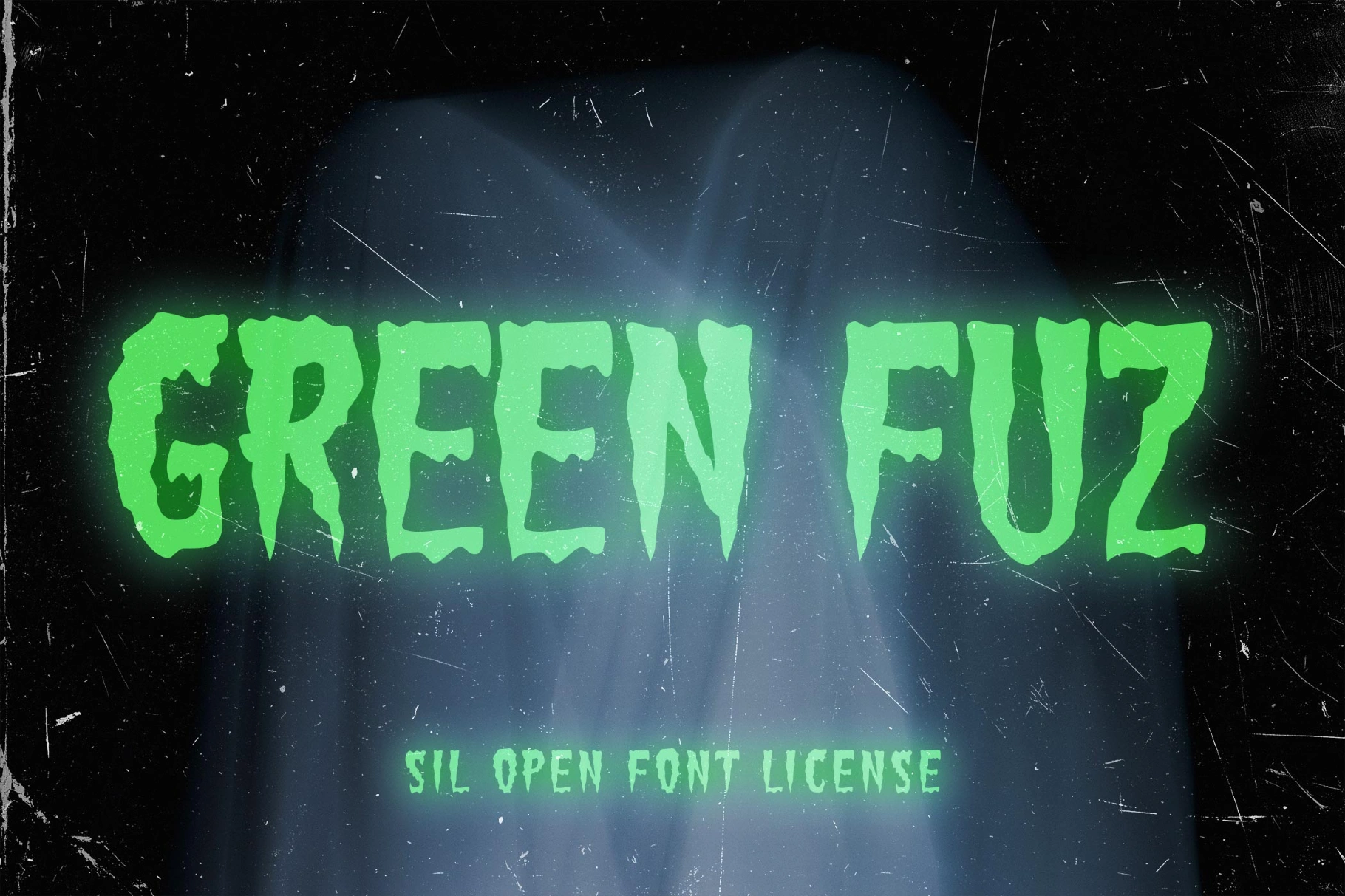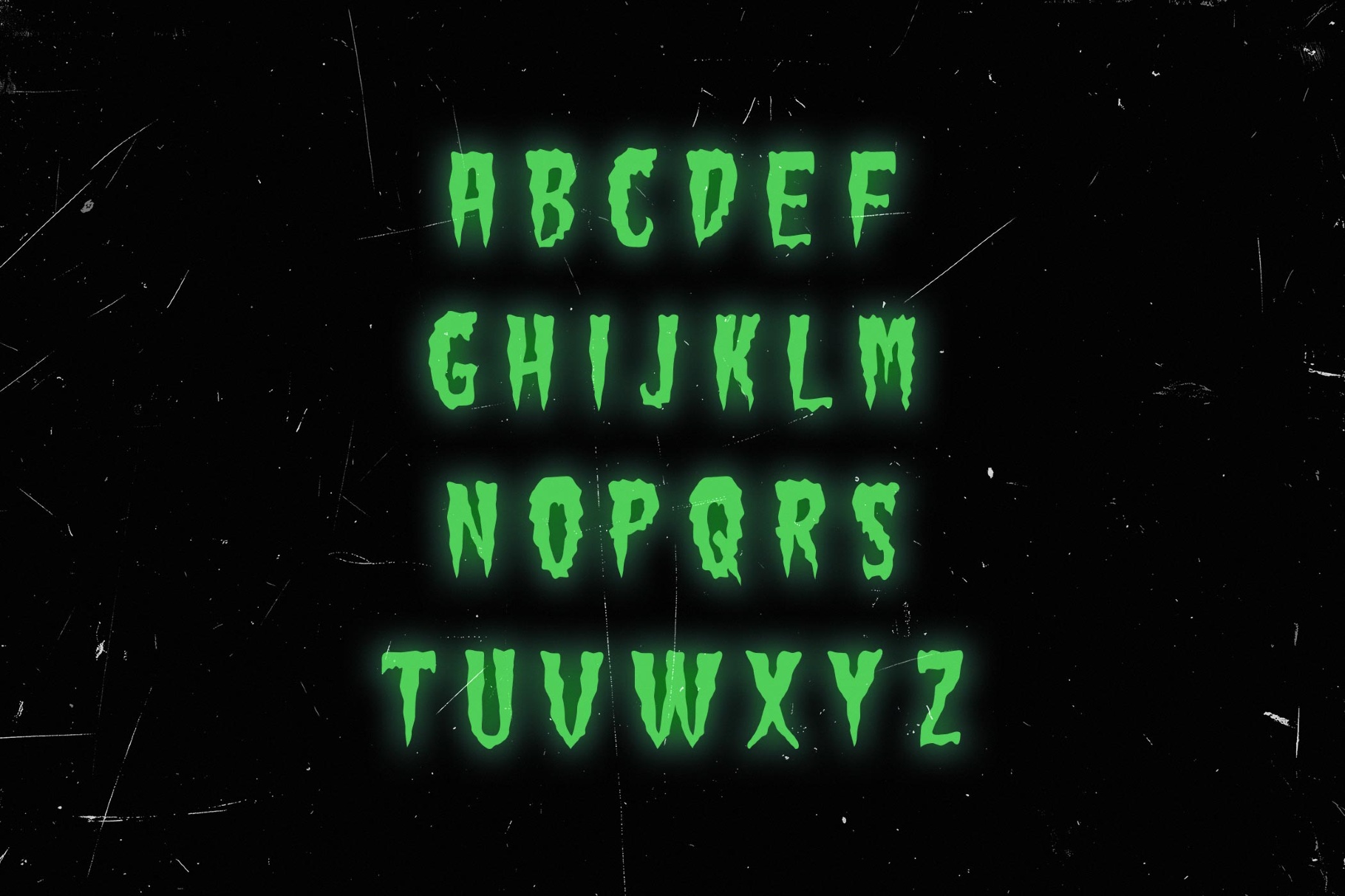
Green Fuz Font
Green Fuz
Green Fuz has letters as swollen shapes that ooze and spread beyond their original form. The texture is dense and damp and gives the text a heavy appearance, so the type works well in visuals that resort to exaggerated horror themes — posters, game titles, Halloween graphics, merchandise, and bold branding. It also fits playful, horror, or strongly eerie concepts.